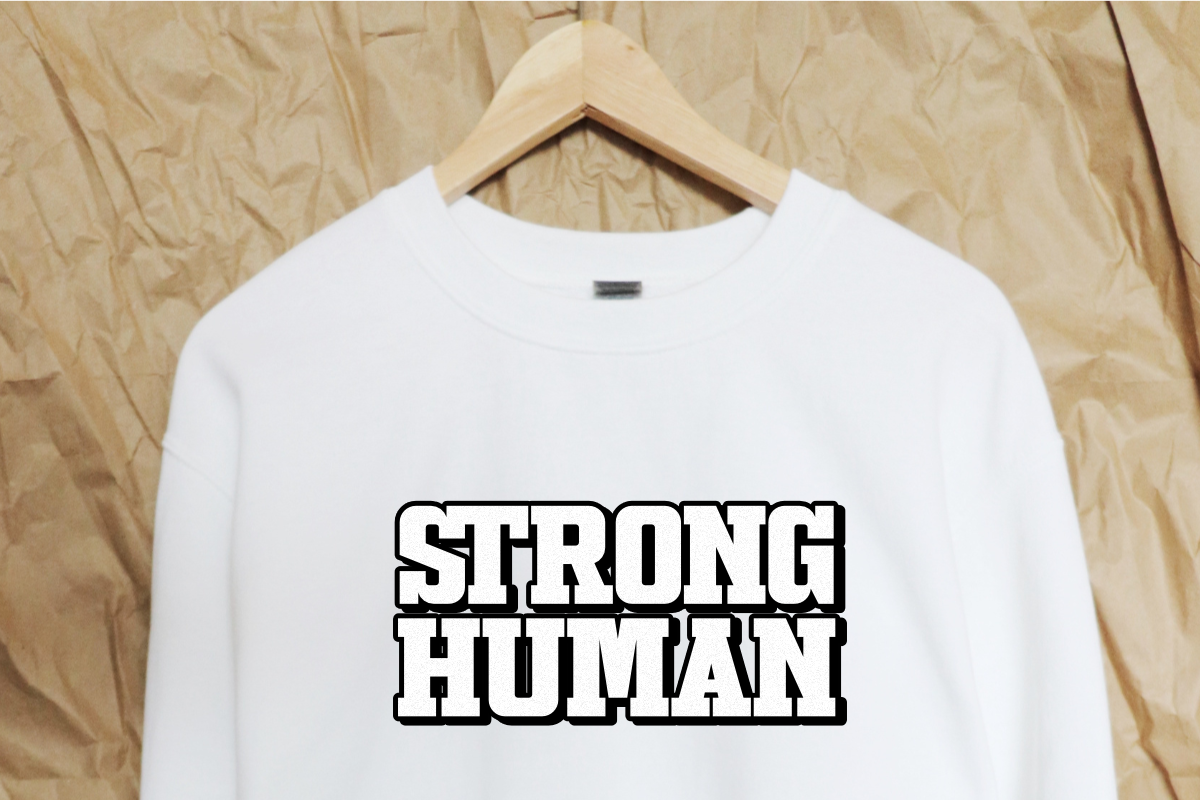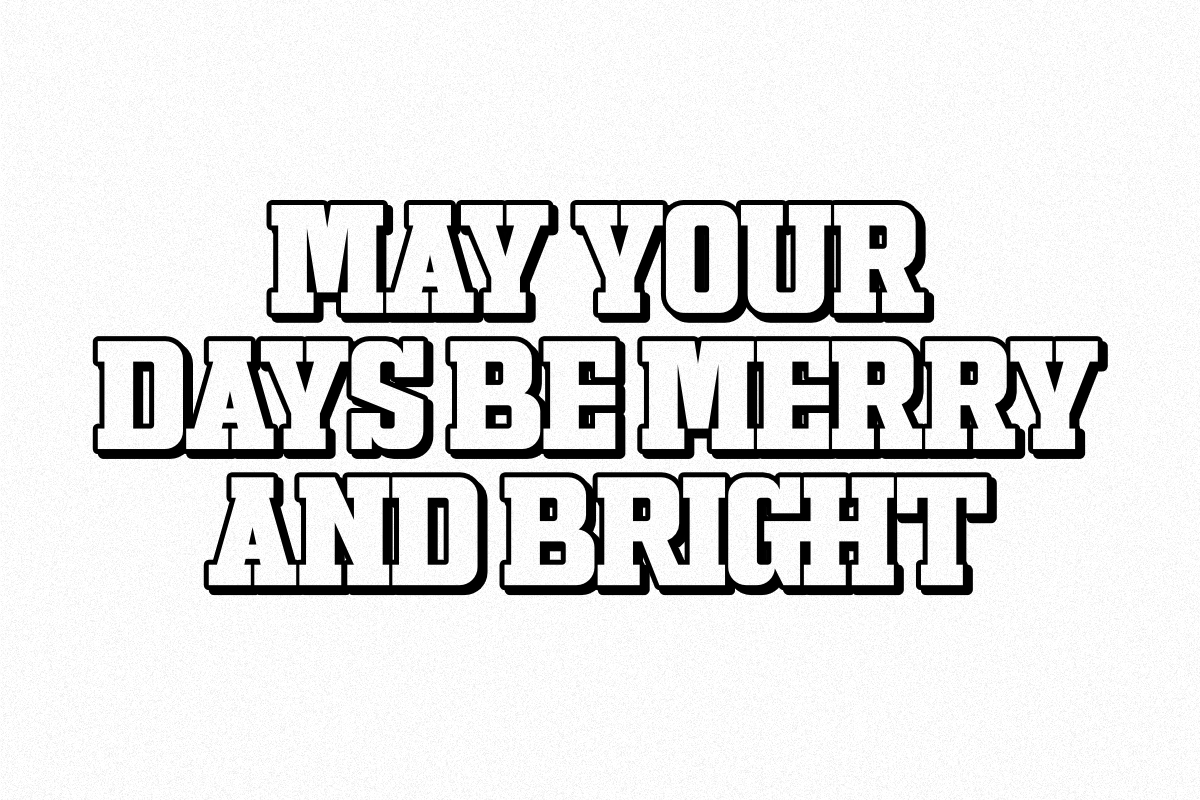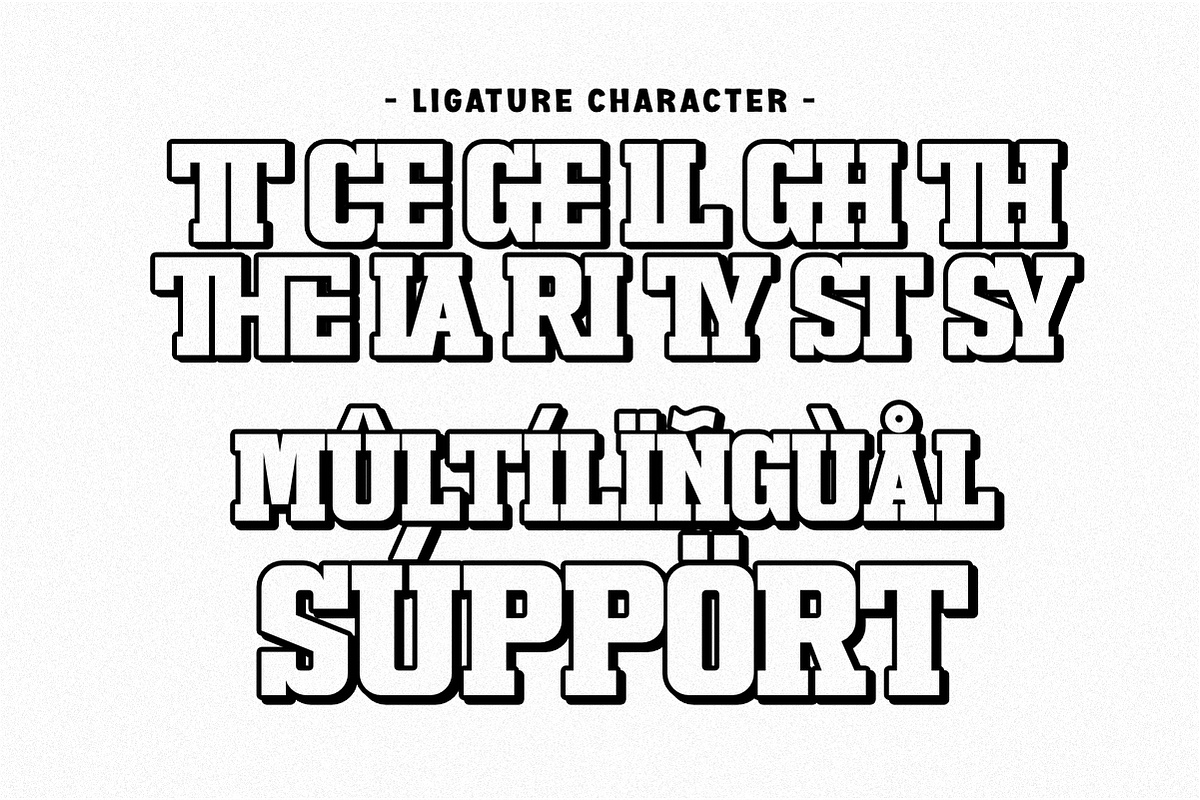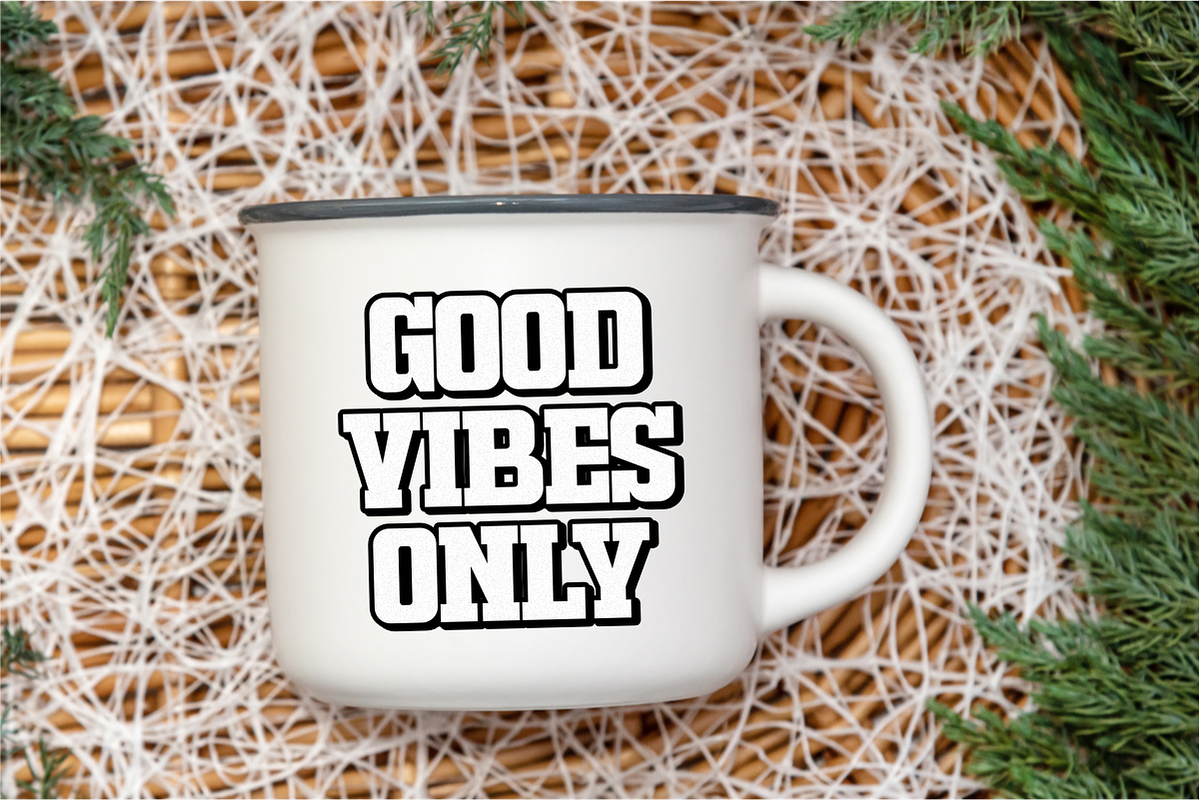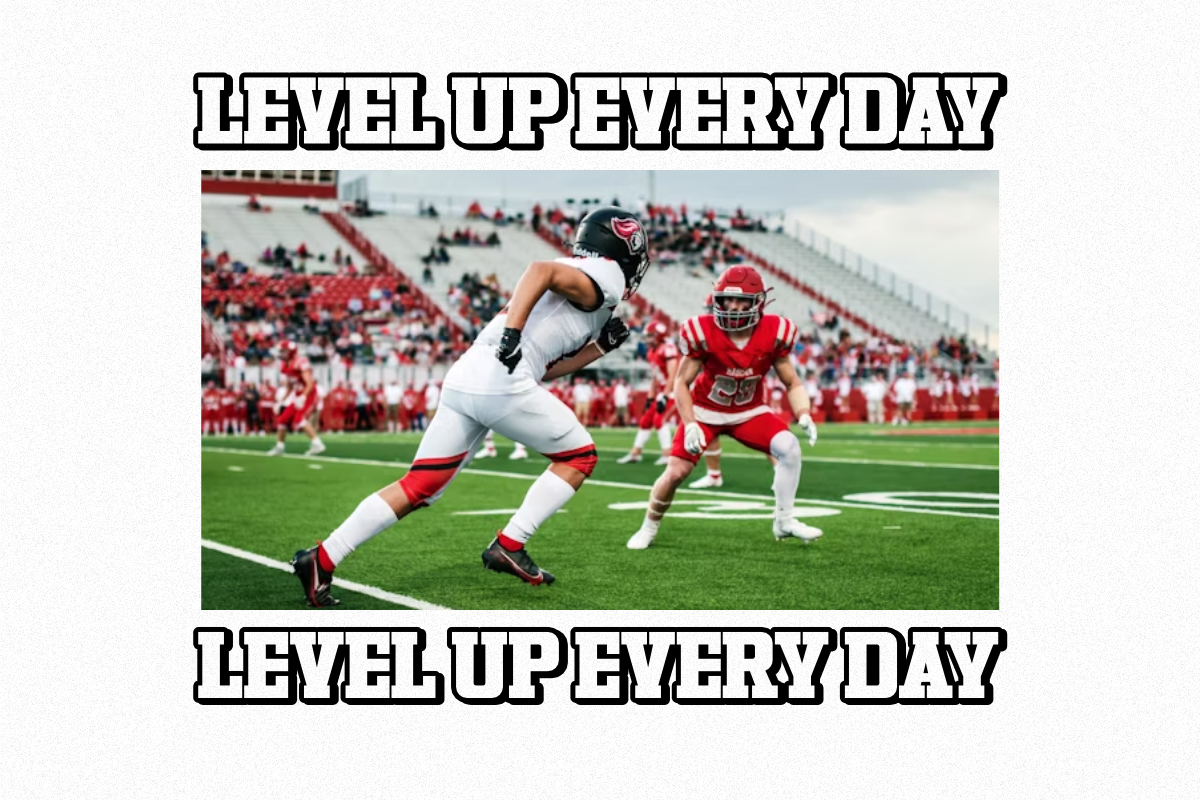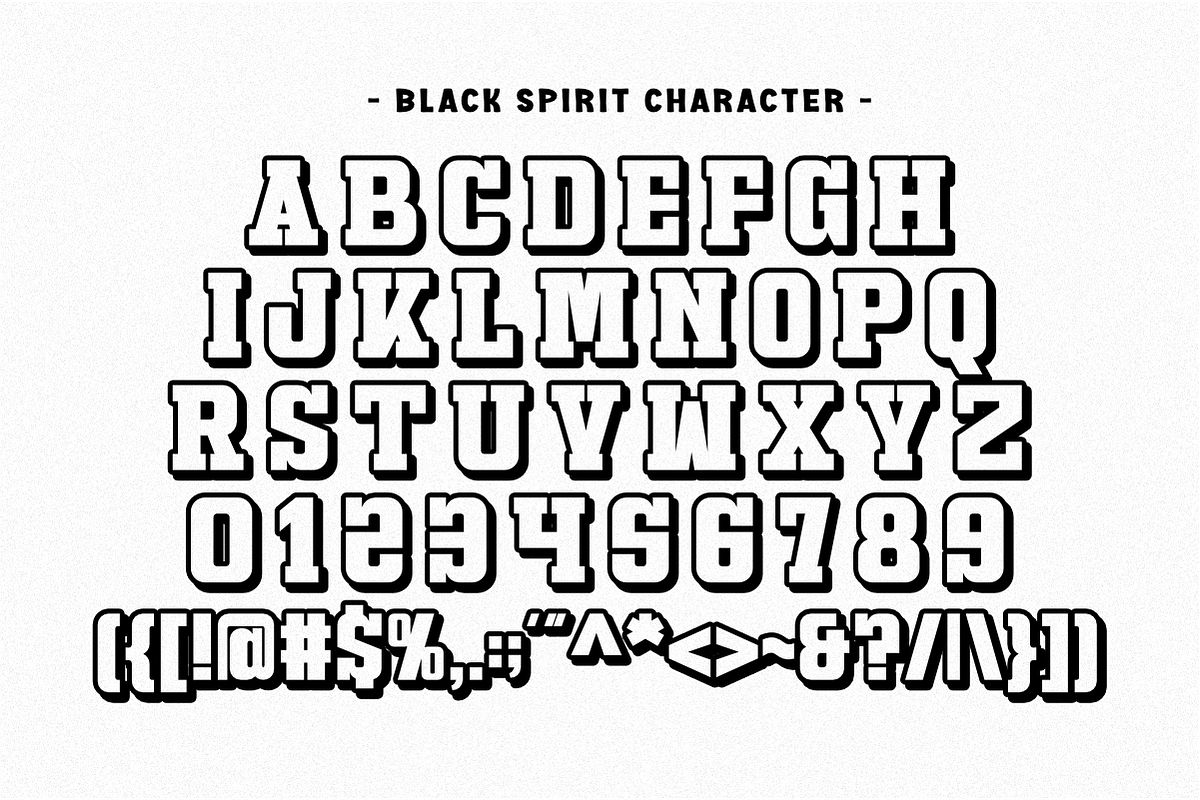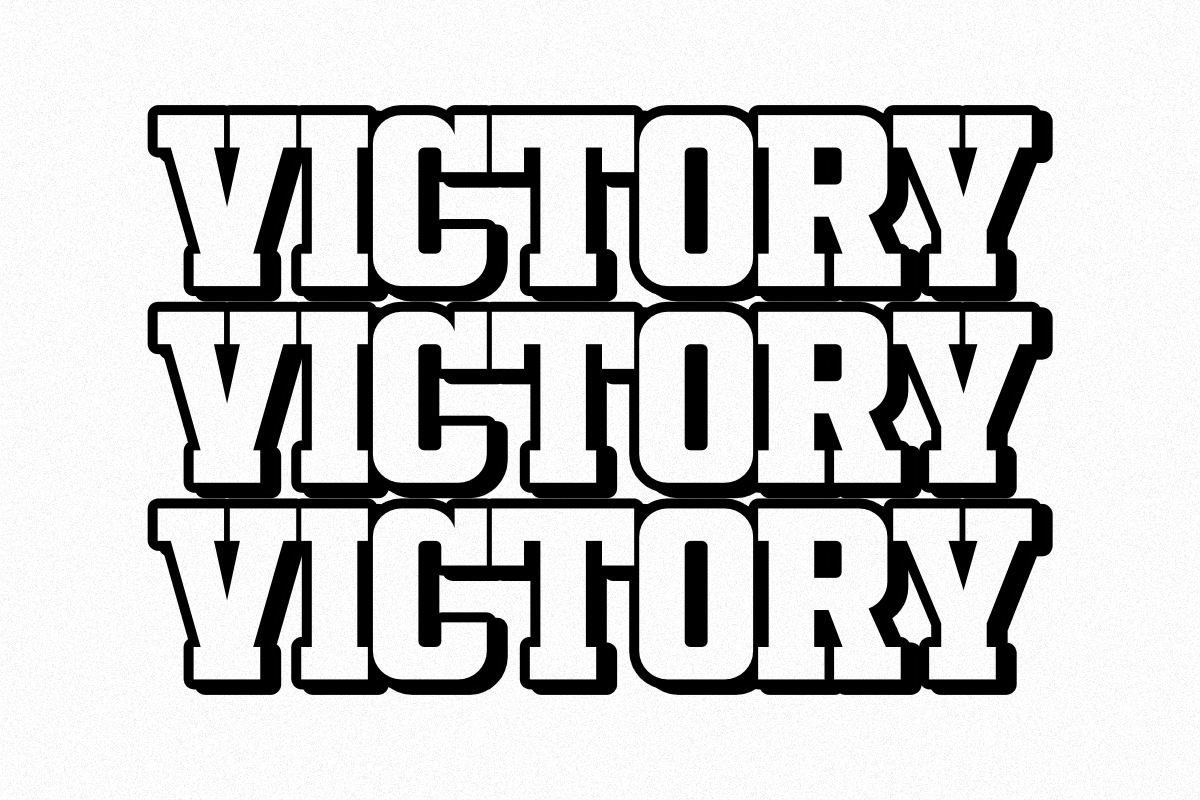
Black Spirit - Condensed Slab Serif
Black Spirit is a truly massive and incredibly powerful Condensed Display Typeface. It features an ultra-thick, blocky structure characterized by clean lines and smoothly rounded corners, perfectly balancing a retro punch with a sleek modern appeal. The font comes equipped with a distinctive, chunky shadow effect layer, making it absolutely ideal for high-impact, layered designs that need to aggressively stand out. This commanding all-caps typeface is the ultimate choice for sports and gym branding, nostalgic retro posters, merchandise, and commanding headlines in both print and digital media. Its clean yet dominant aesthetic guarantees an instantly recognizable and strong visual identity across apparel design, logo creation, and any project demanding maximum visual dominance and energetic appeal.